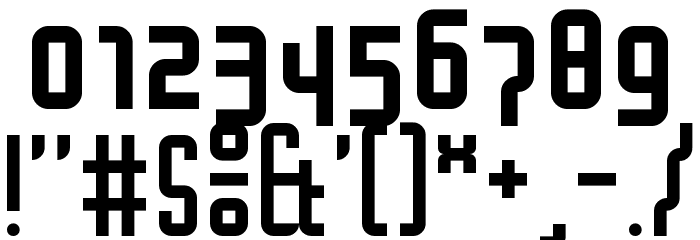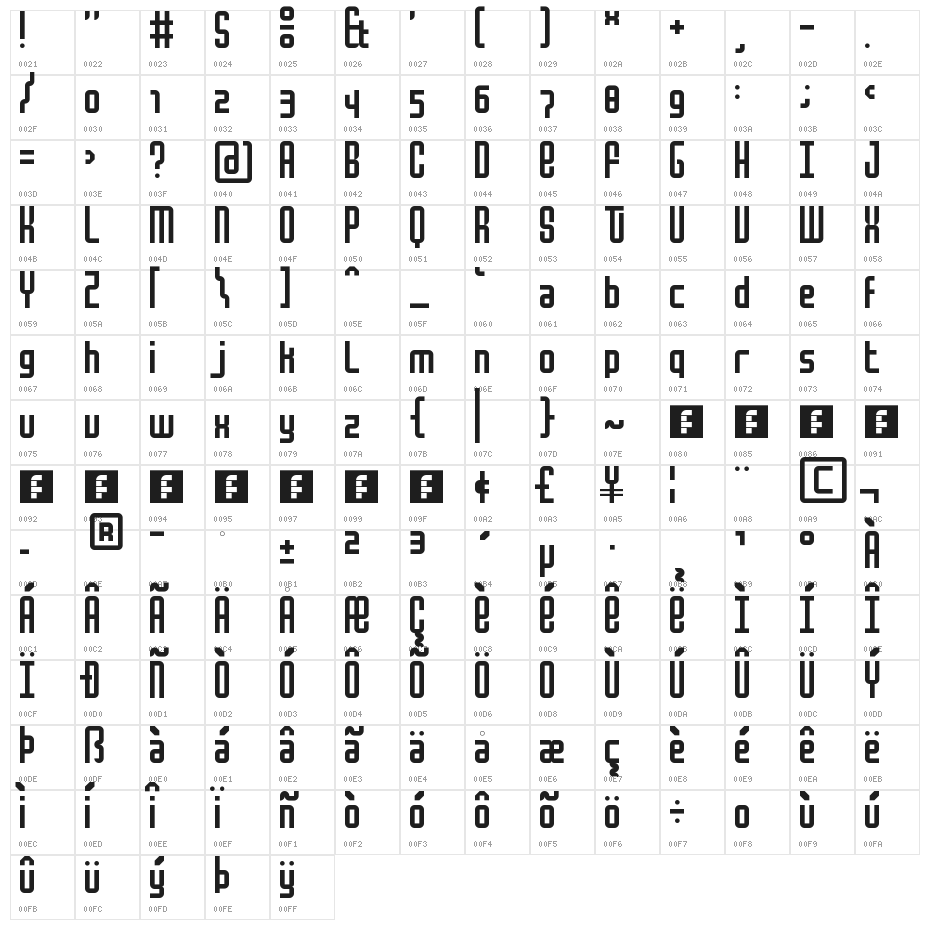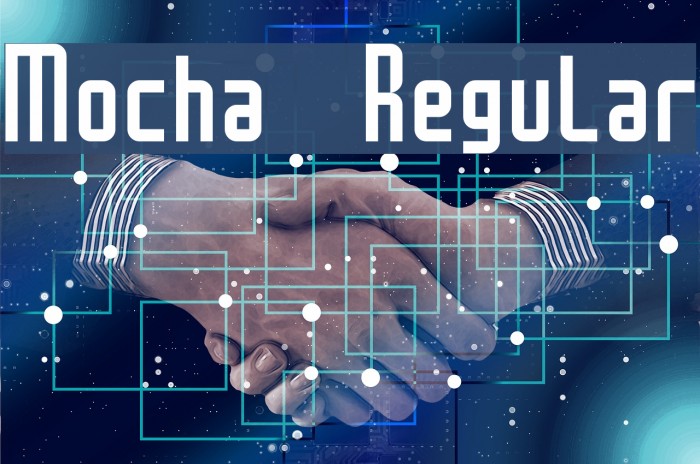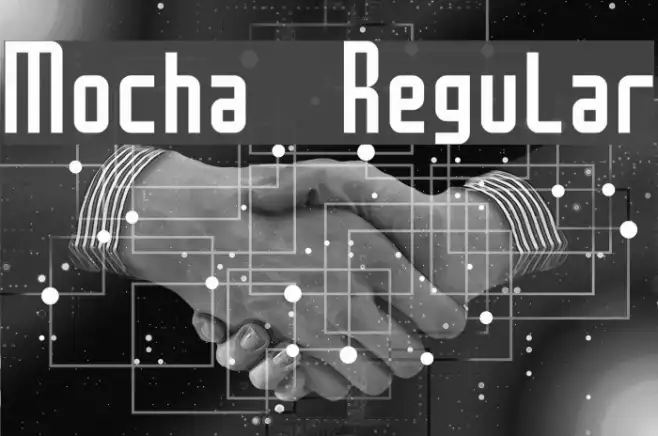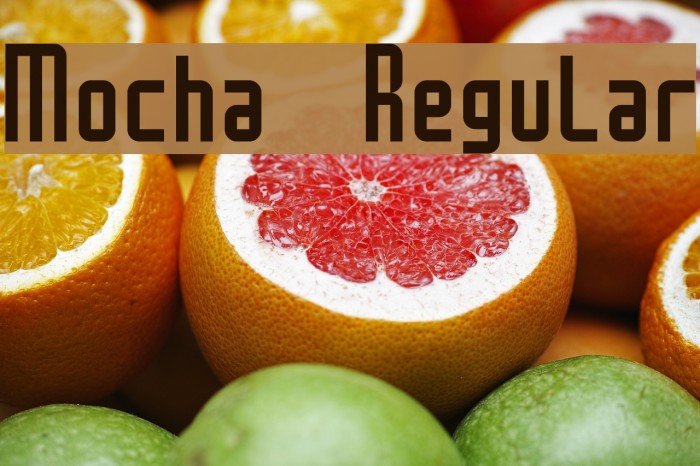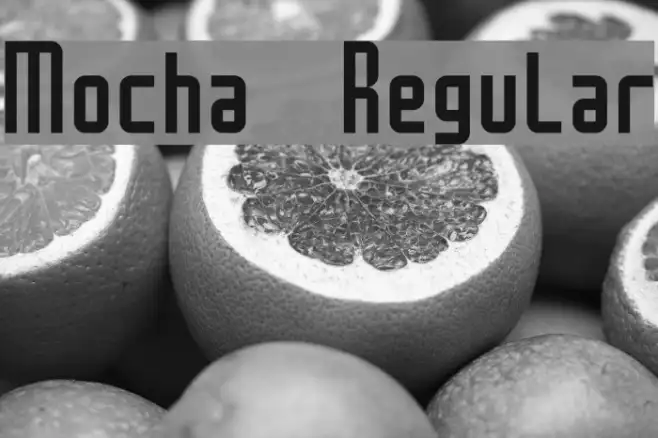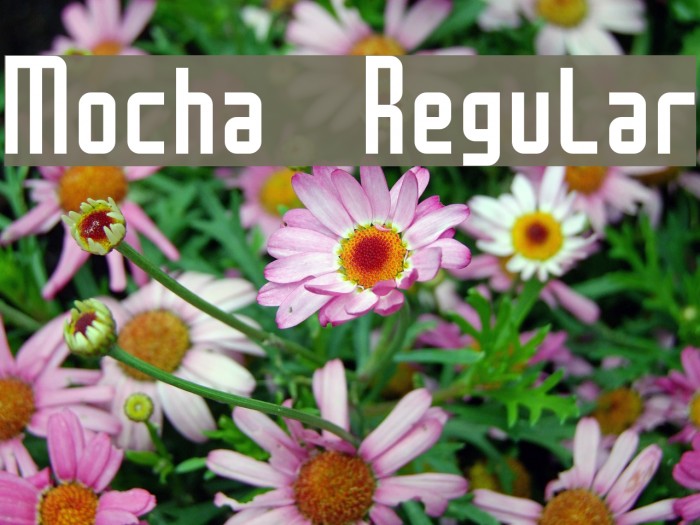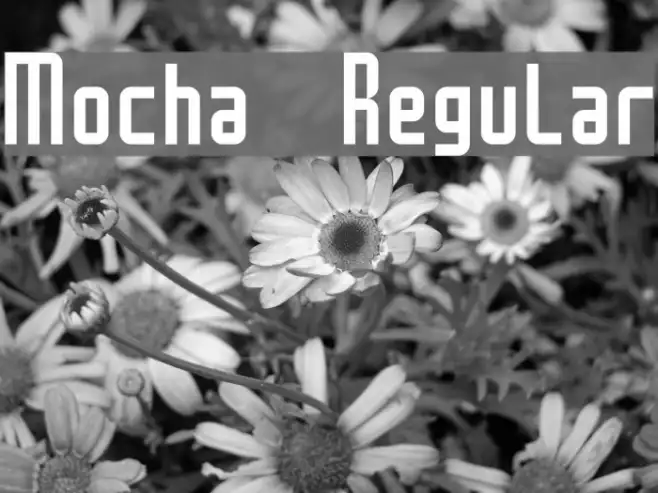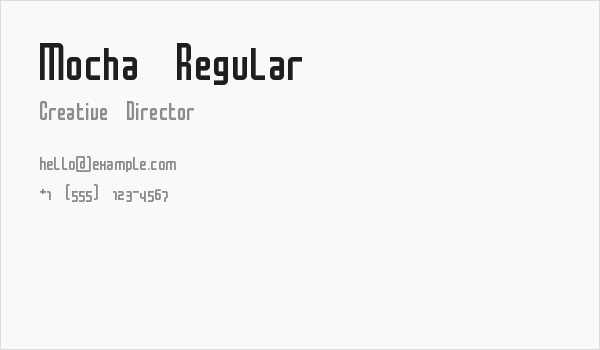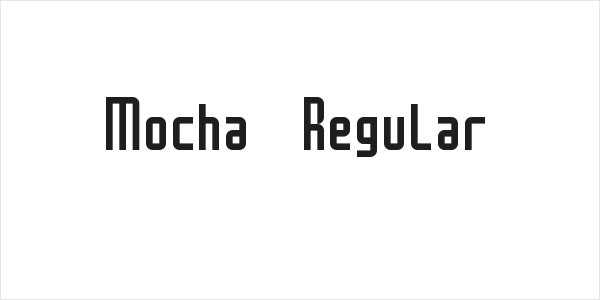
Mocha Regular Font
Mocha Regular Description
This font features a bold and geometric design with a modern aesthetic. The characters are uniformly structured, with a consistent stroke width that gives it a strong and impactful presence. The uppercase letters are tall and narrow, while the lowercase letters maintain a similar width, providing a cohesive look across different text sizes. The numerals are clear and distinct, making them easily readable. Special characters are designed with the same geometric style, ensuring uniformity. This font is ideal for projects that require a contemporary and assertive look.
| Proposed Projects | Ideal for branding, headlines, posters, and digital media where a strong and modern presence is desired. |